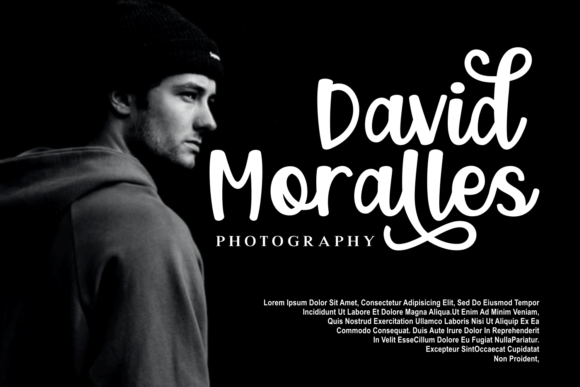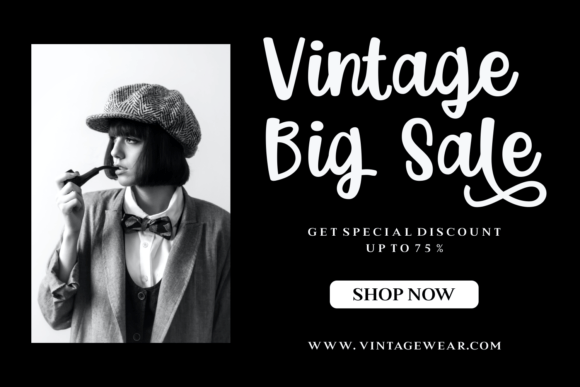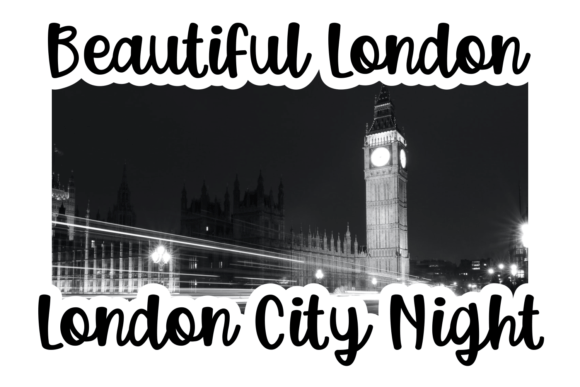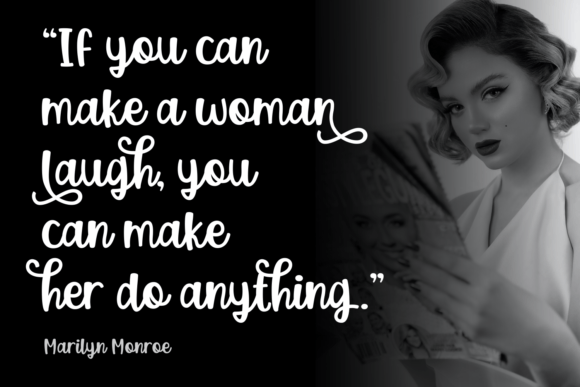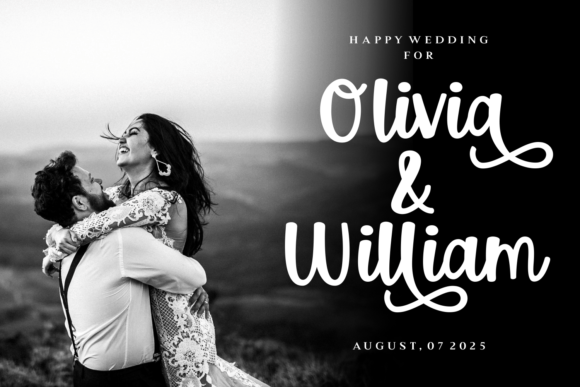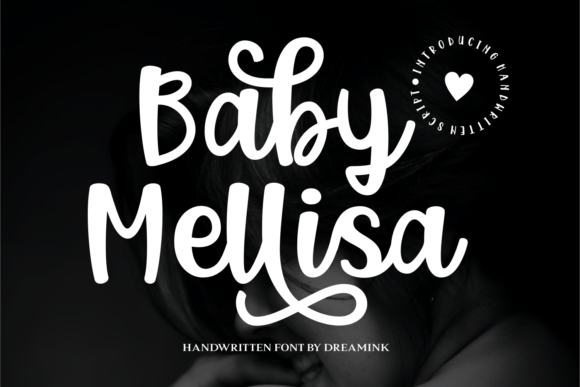
Baby Mellisa Font: The Ultimate Choice for Whimsical Designs
Are you a designer, crafter, or DIY enthusiast looking for a font that can add a touch of sweetness and innocence to your projects? Look no further than the Baby Mellisa font! This charming handwritten font is designed to capture the essence of joy and playfulness, making it perfect for a wide range of creative applications.
The Characteristics of Baby Mellisa Font
Baby Mellisa is a delightful font that boasts delicate curves and playful strokes, giving it a unique and endearing personality. Its whimsical design makes it an excellent choice for projects that require a touch of innocence and charm. Whether you’re creating invitations, greeting cards, or social media graphics, Baby Mellisa is sure to bring a smile to your audience’s faces.
The versatility of Baby Mellisa font makes it suitable for a wide range of design projects. Here are some ideas to get you started:
• Invitations: Create adorable birthday invitations, baby shower invites, or wedding announcements that set the tone for a joyful celebration.
• Stationery: Design heartfelt notes, cute labels, or personalized stationery that showcases your creativity and attention to detail.
• Social Media Graphics: Add a playful touch to your social media posts, quotes, or inspirational messages that resonate with your audience.
• Crafting: Use Baby Mellisa font to create custom titles, headings, or descriptions for your handmade products, such as jewelry, candles, or baked goods.
One of the best features of Baby Mellisa font is its PUA (Private Use Area) encoding. This means that you can access all the amazing glyphs and ligatures with ease, giving you more creative freedom and flexibility. With PUA encoding, you can:
• Access a wide range of glyphs: Use a variety of special characters, symbols, and ornaments to add visual interest to your designs.
• Create stunning ligatures: Combine letters and glyphs to create beautiful, unique word combinations that showcase your creativity.
Why Choose Baby Mellisa Font?
With so many fonts available, why choose Baby Mellisa? Here are just a few reasons why this font stands out:
• Unique and playful design: Baby Mellisa font is designed to bring a touch of whimsy and joy to your projects.
• High-quality and legible: The font is crafted with attention to detail, ensuring that it’s both visually appealing and easy to read.
• Versatile and adaptable: Use Baby Mellisa font for a wide range of design projects, from digital graphics to print materials.
In conclusion, Baby Mellisa font is a charming and versatile font that’s perfect for designers, crafters, and DIY enthusiasts looking to add a touch of sweetness and innocence to their projects. With its delicate curves, playful strokes, and PUA encoding, this font is sure to bring a smile to your audience’s faces. So why wait? Download Baby Mellisa font today and start creating whimsical designs that capture the essence of joy and playfulness!